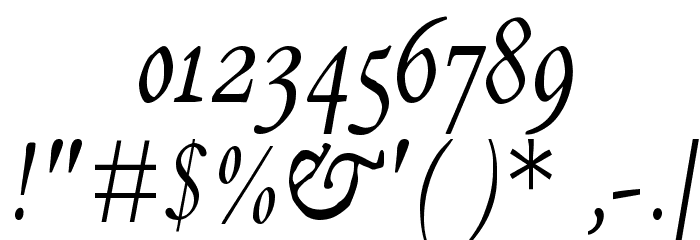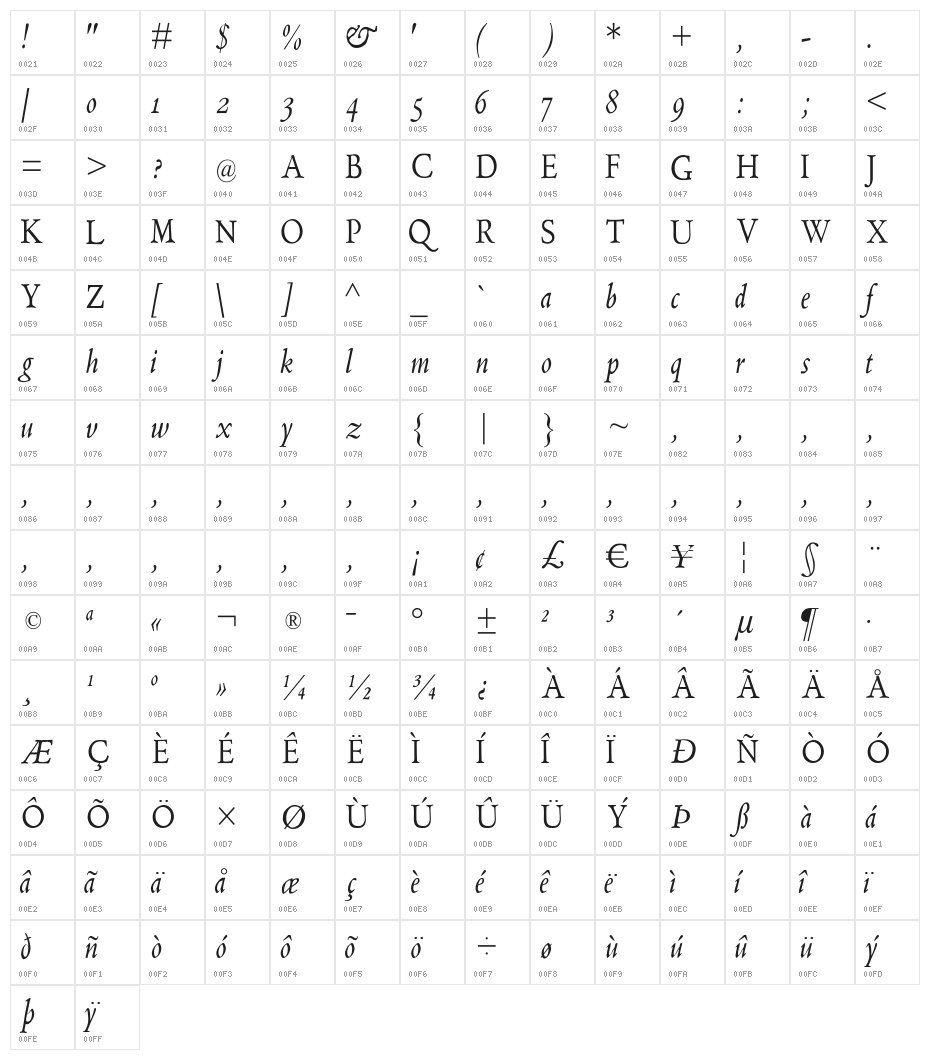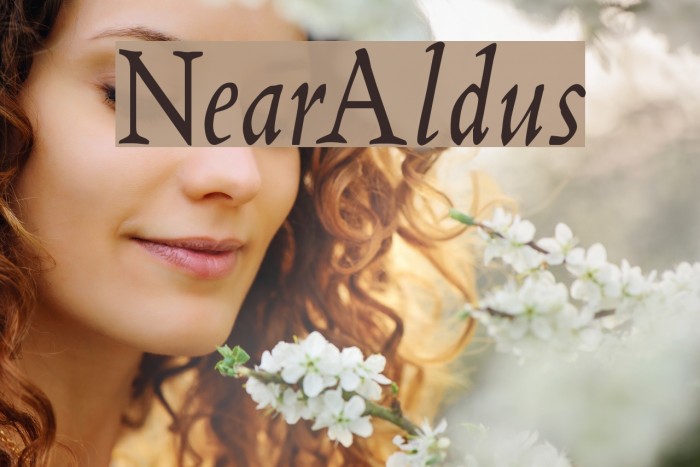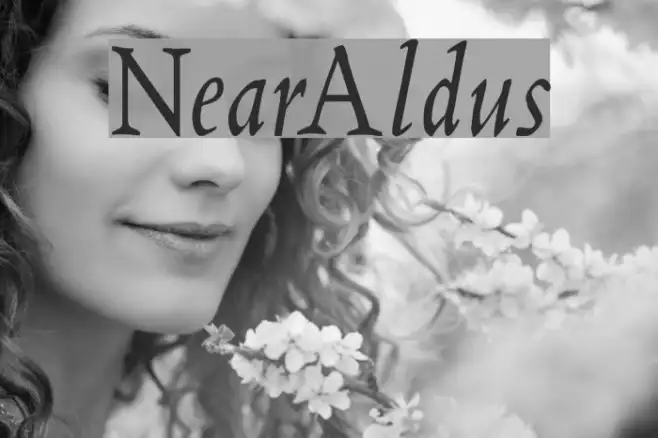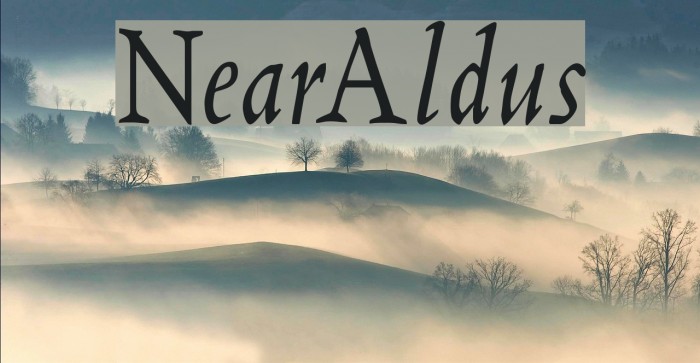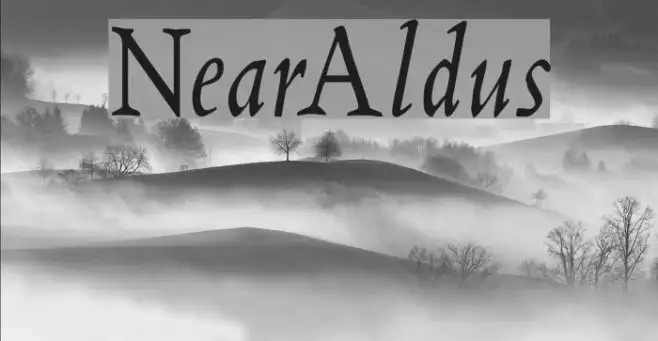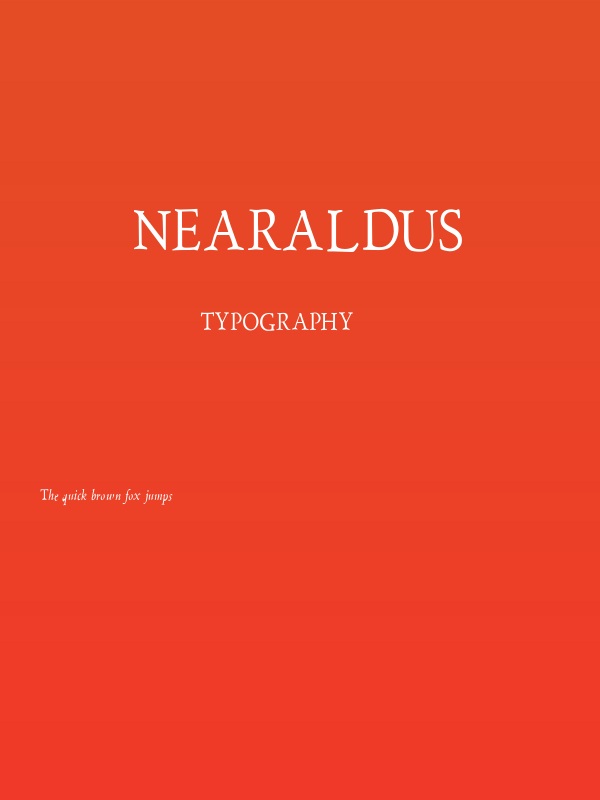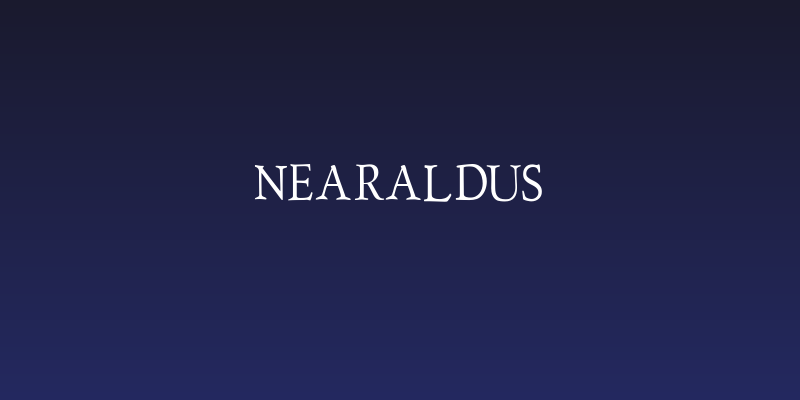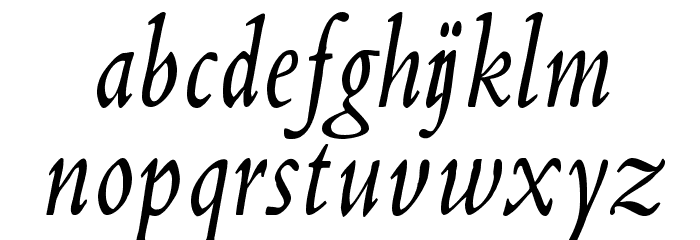
NearAldus Font
NearAldus Description
This font exhibits a classic serif style with elegant, flowing lines and a slightly calligraphic touch. The uppercase letters are bold and stately, with pronounced serifs that give them a traditional and authoritative appearance. The lowercase letters maintain a graceful, cursive-like quality, particularly noticeable in the curved strokes and the subtle slant. The numerals are clear and consistent, matching the overall style of the alphabet. Special characters are well-integrated, maintaining the same aesthetic with a touch of sophistication. This font is versatile, suitable for both formal and creative applications, offering a timeless appeal.